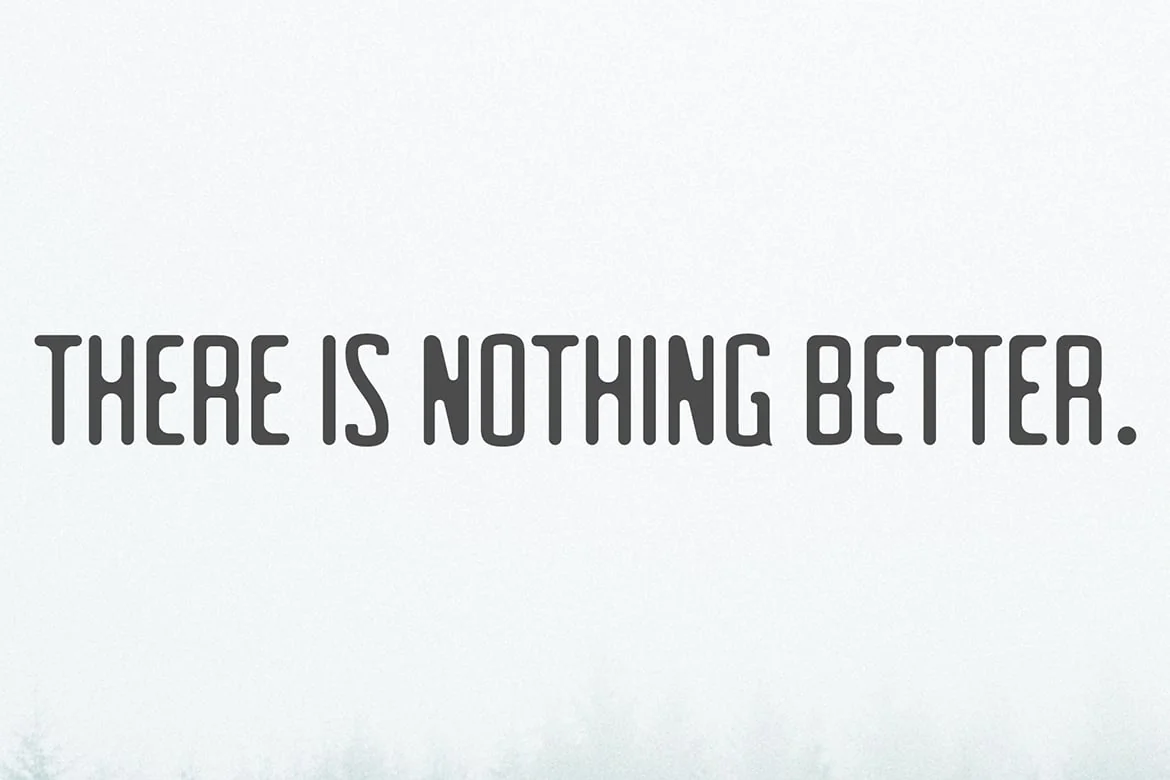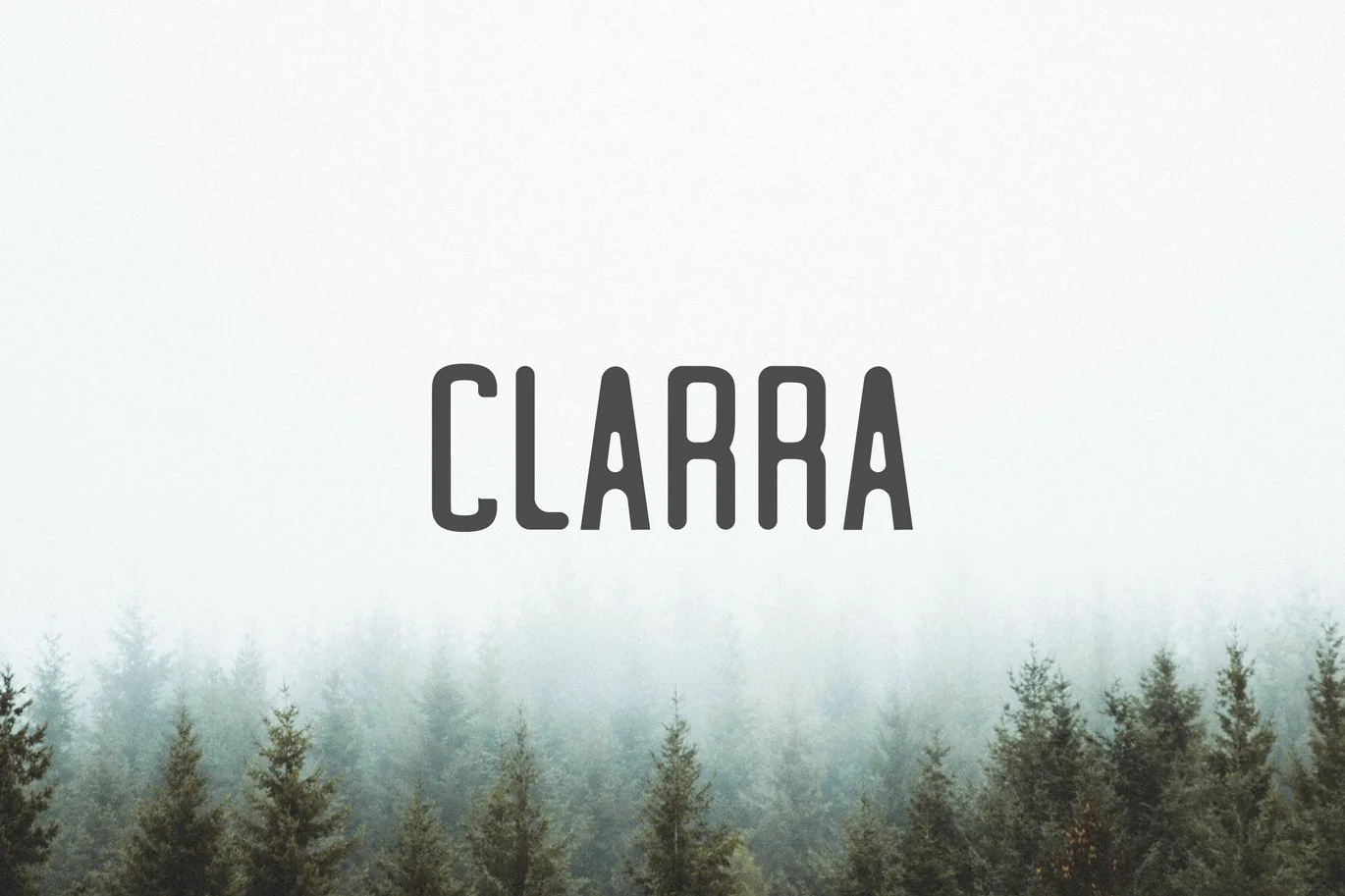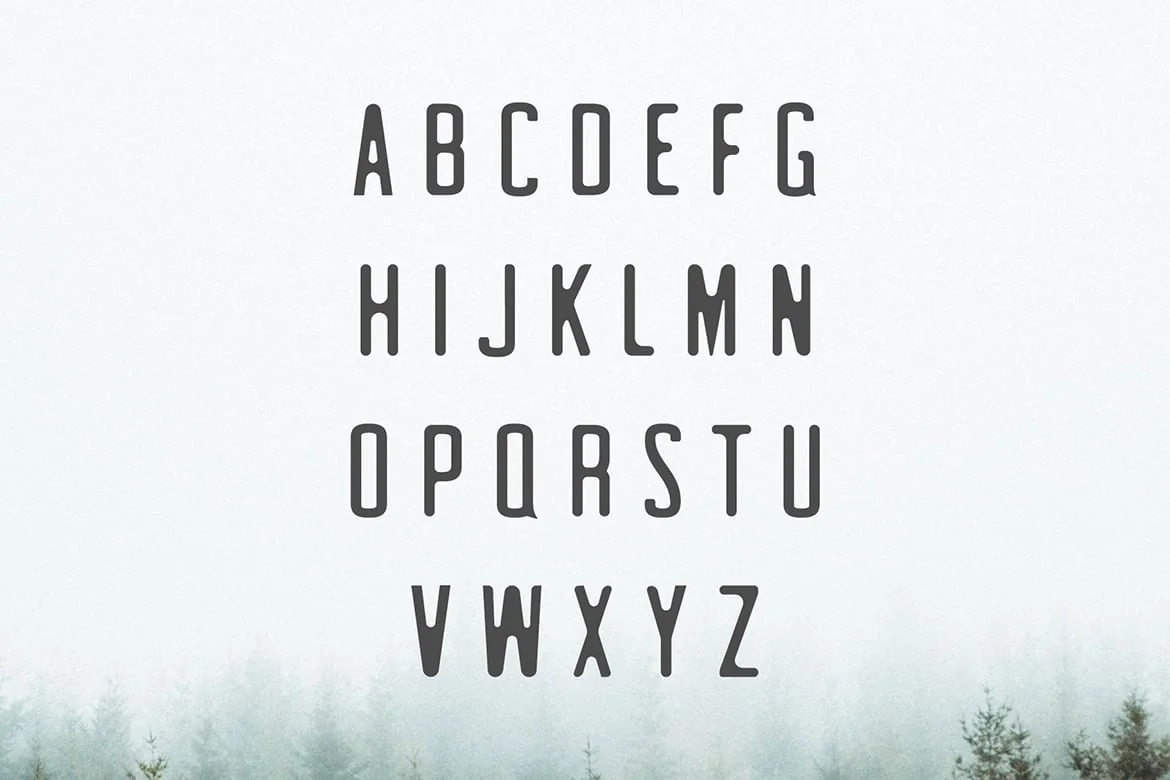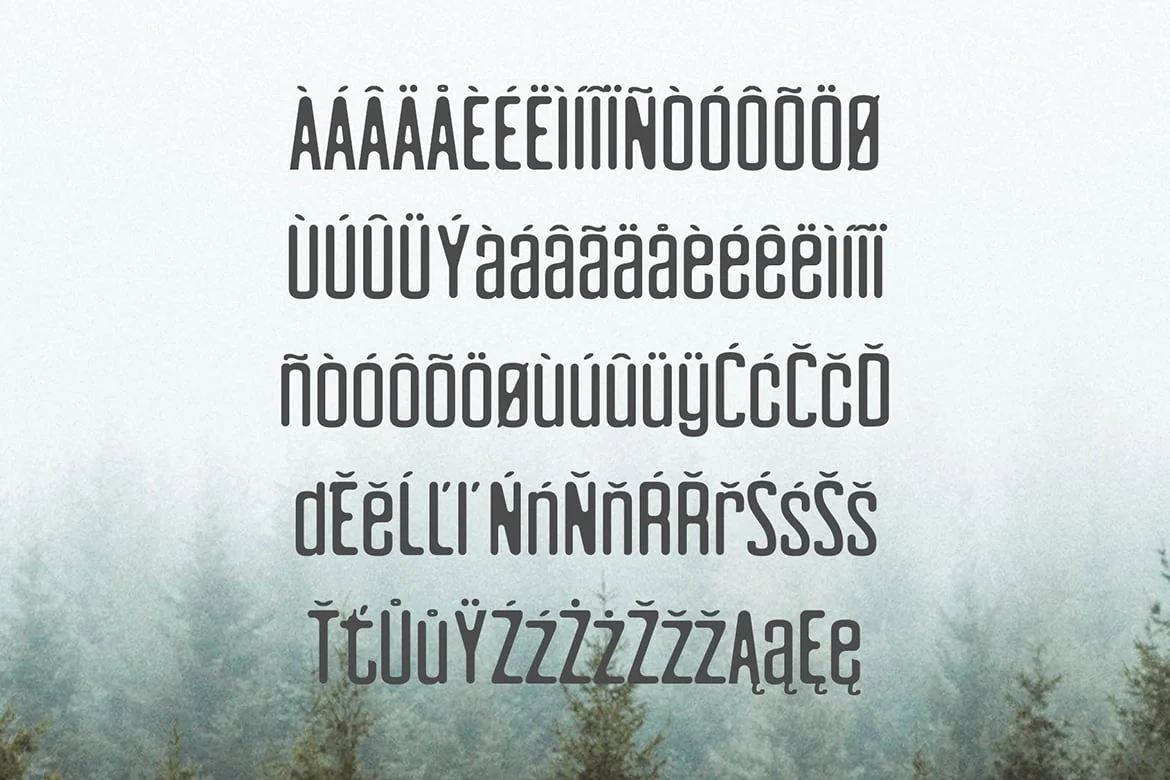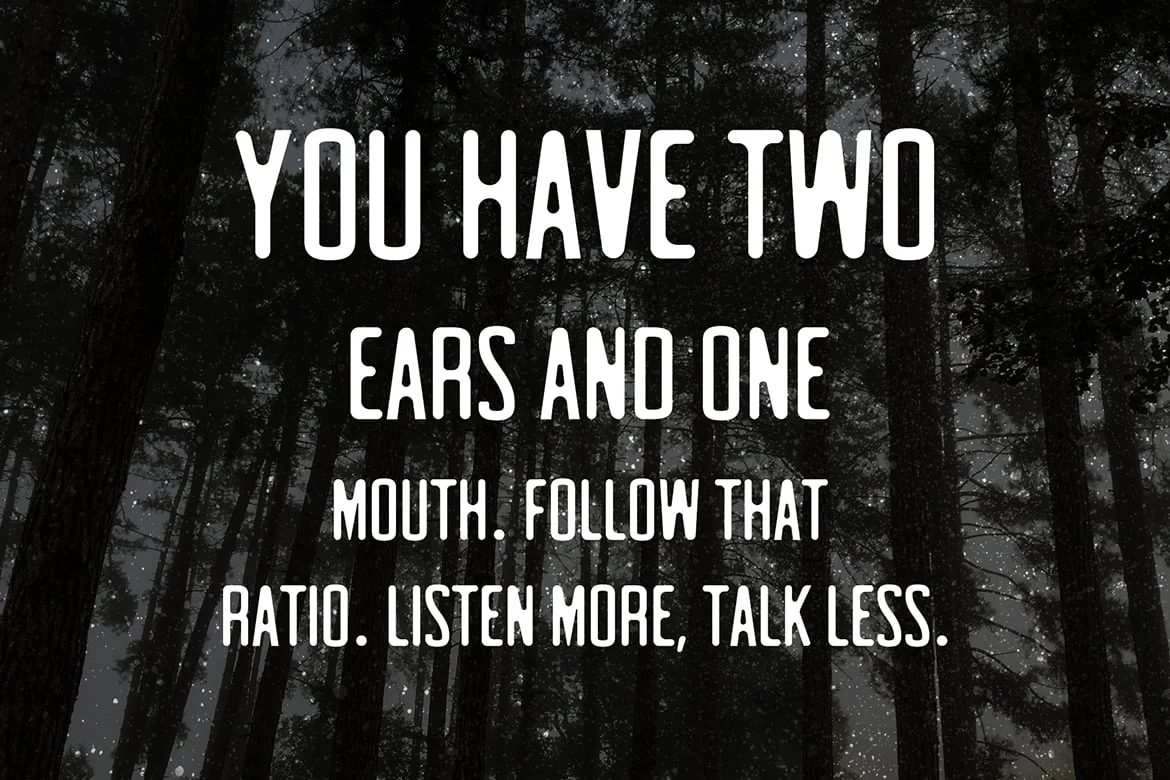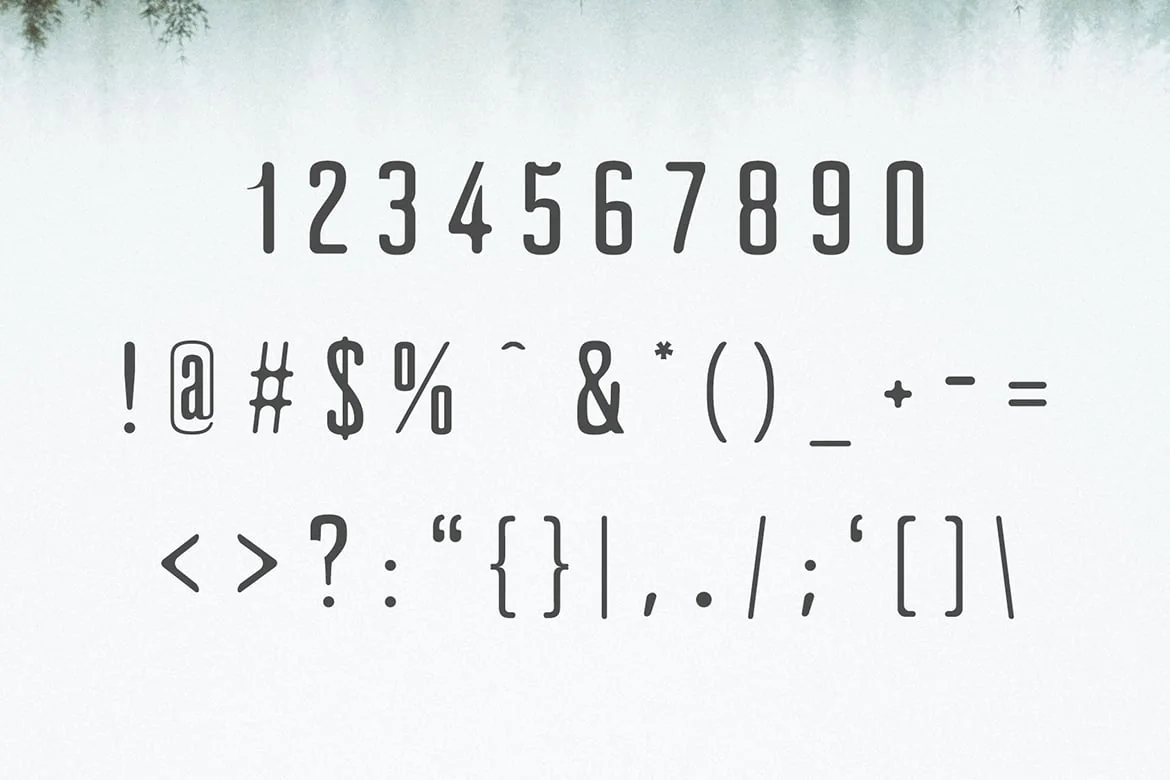
Clarra Sans Serif Font Family
Clarra Sans Serif Font Family is a strong and smooth rounded sans serif font. It includes 5 weights. It can be used to create great works on logos, texts, presentations, posters, magazines, notices, titles, name card, magazine, web layouts, invitations, headers, branding and other any business related. It looks gorgeous in all caps with a wide-set spacing if you want to try a classy look, or beautiful on its own in capital and lowercase letters for something completely timeless.
- Uppercase Letters
- Lowercase Letters
- Non English Characters ( Latin Supplement + Latin Extended A )